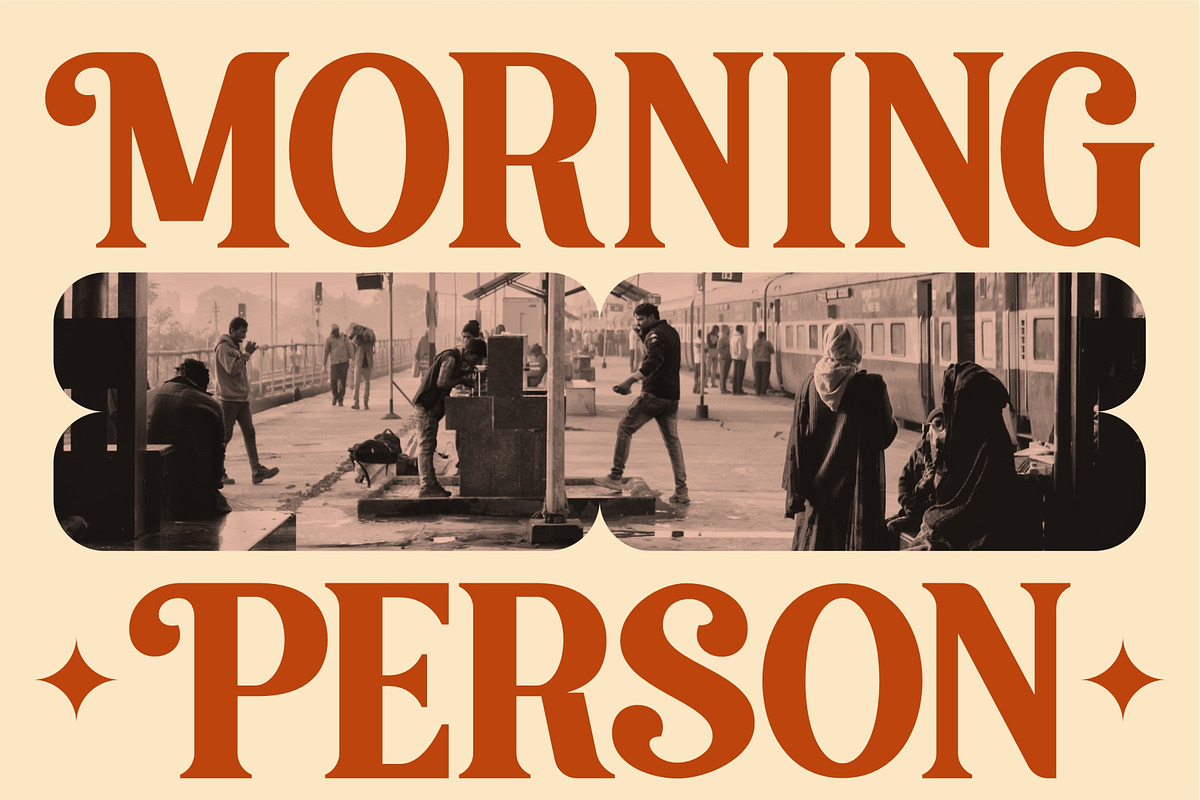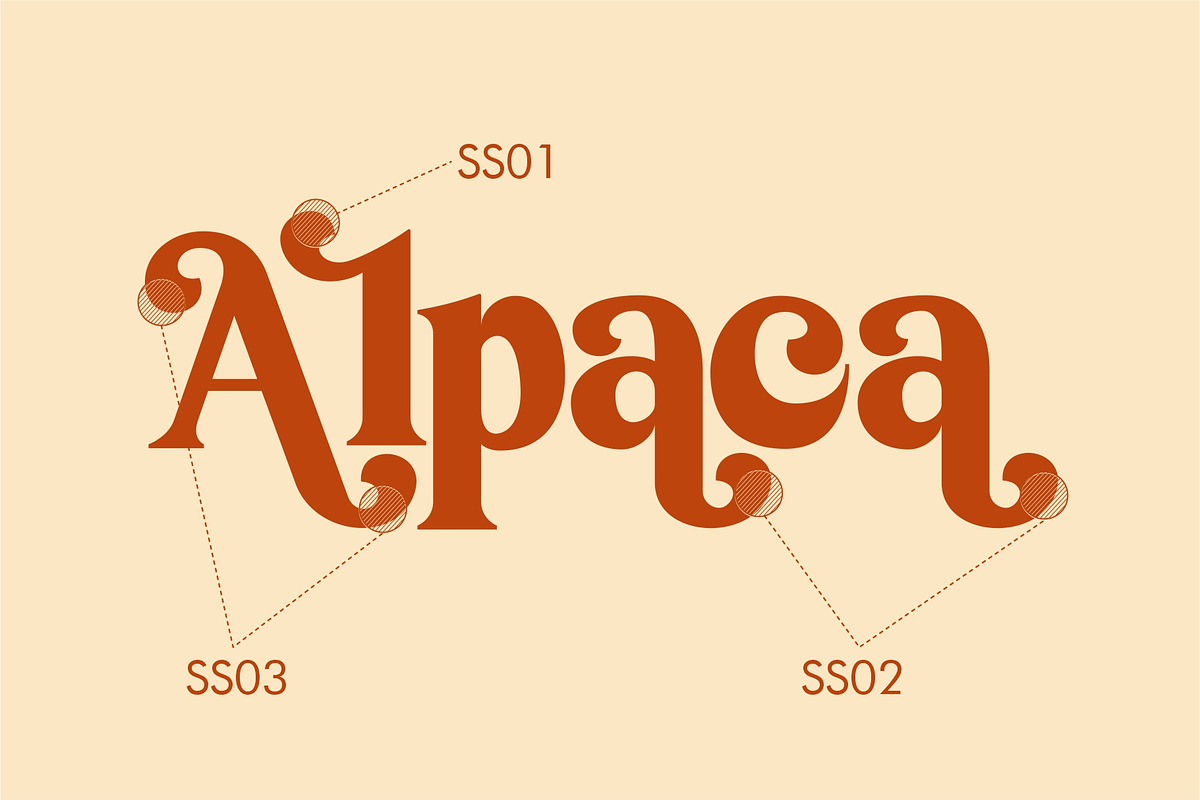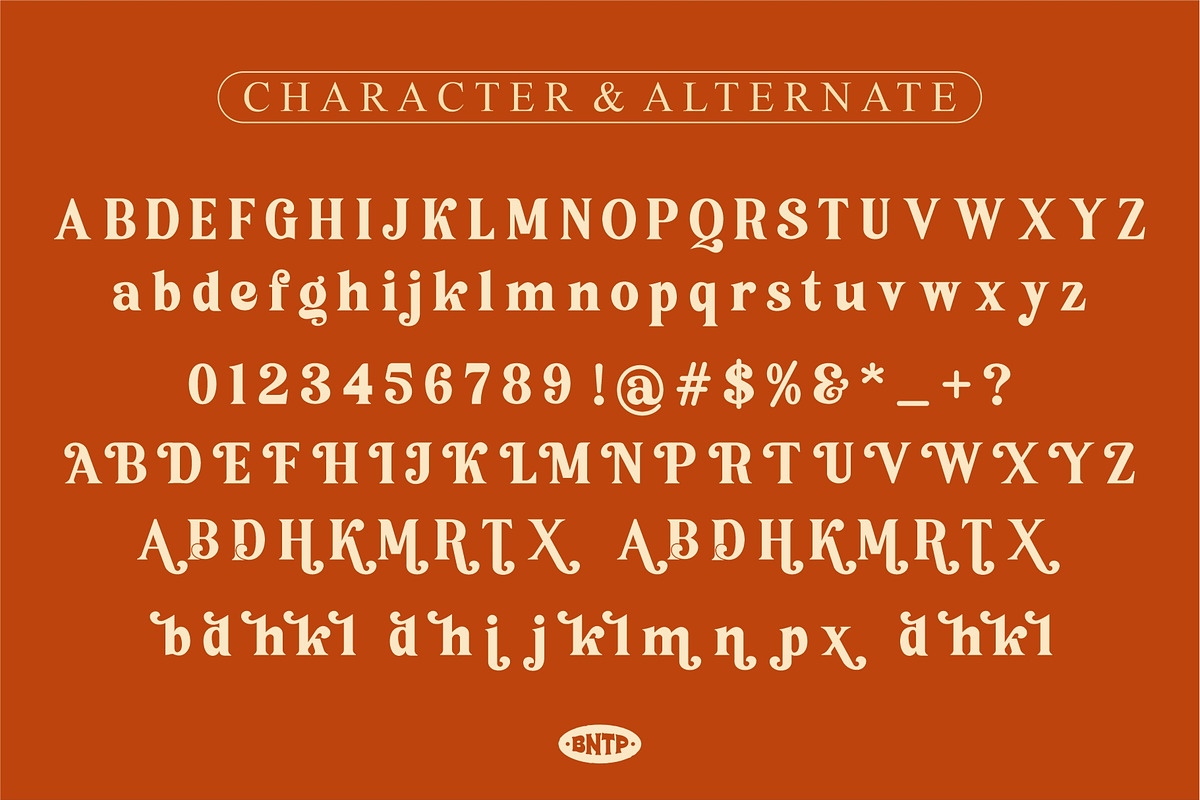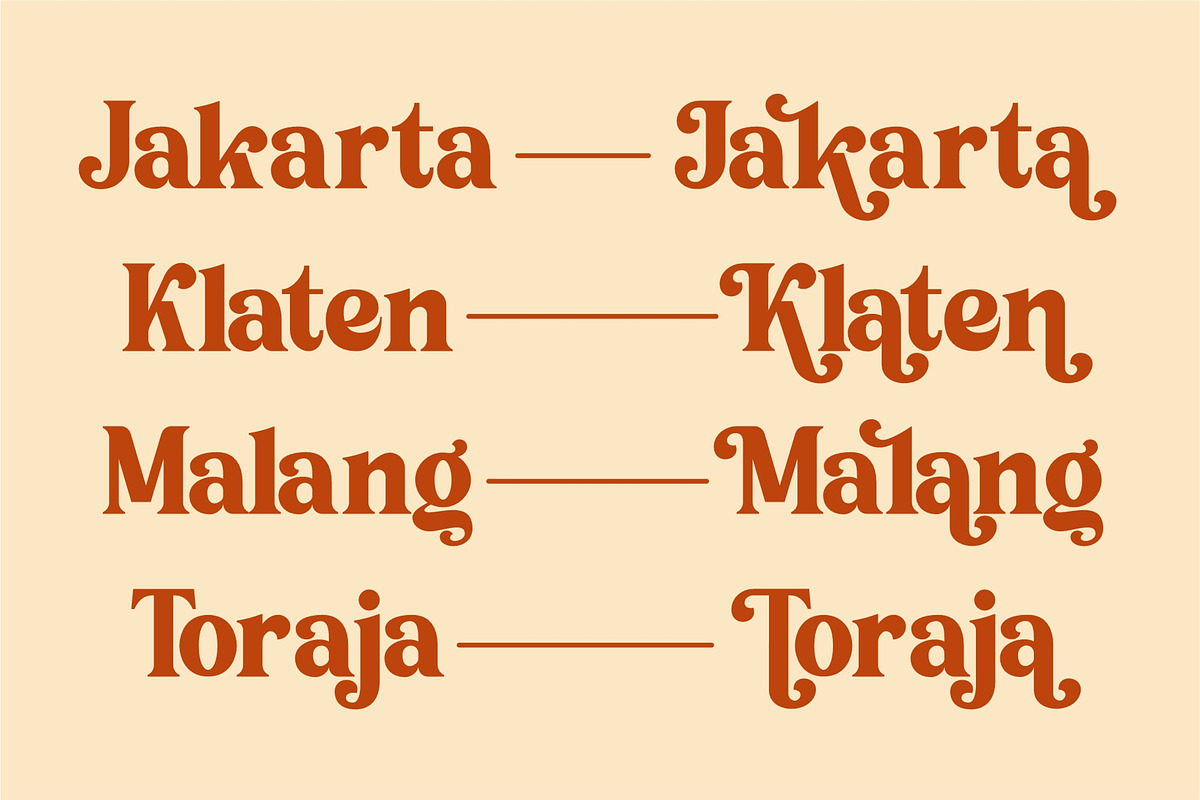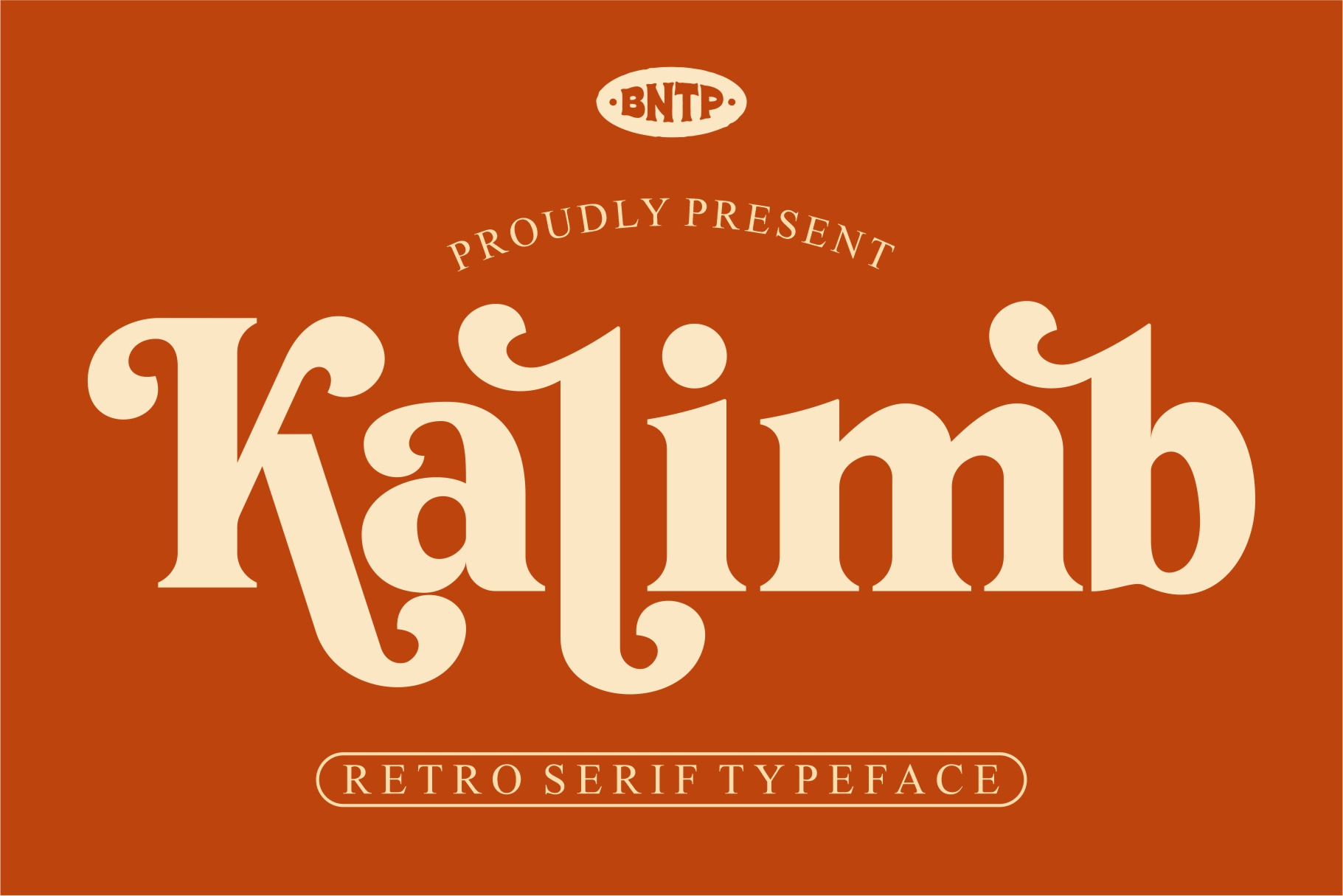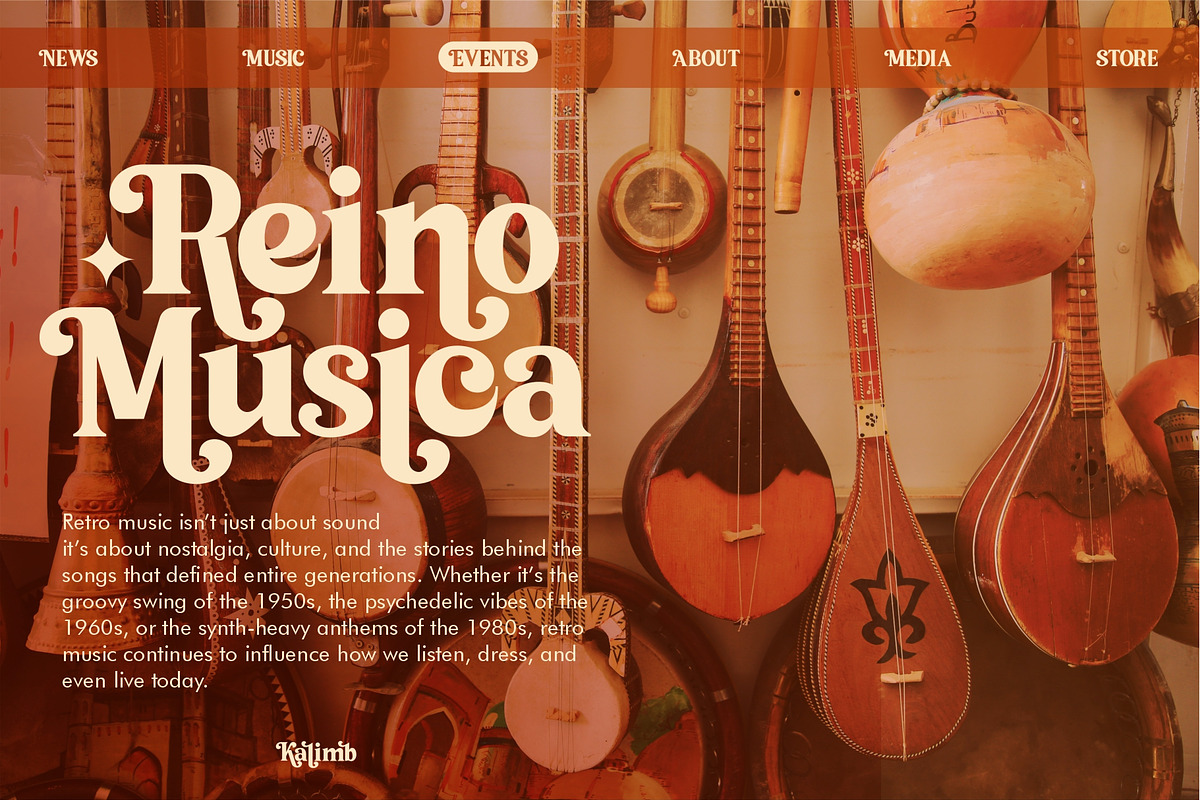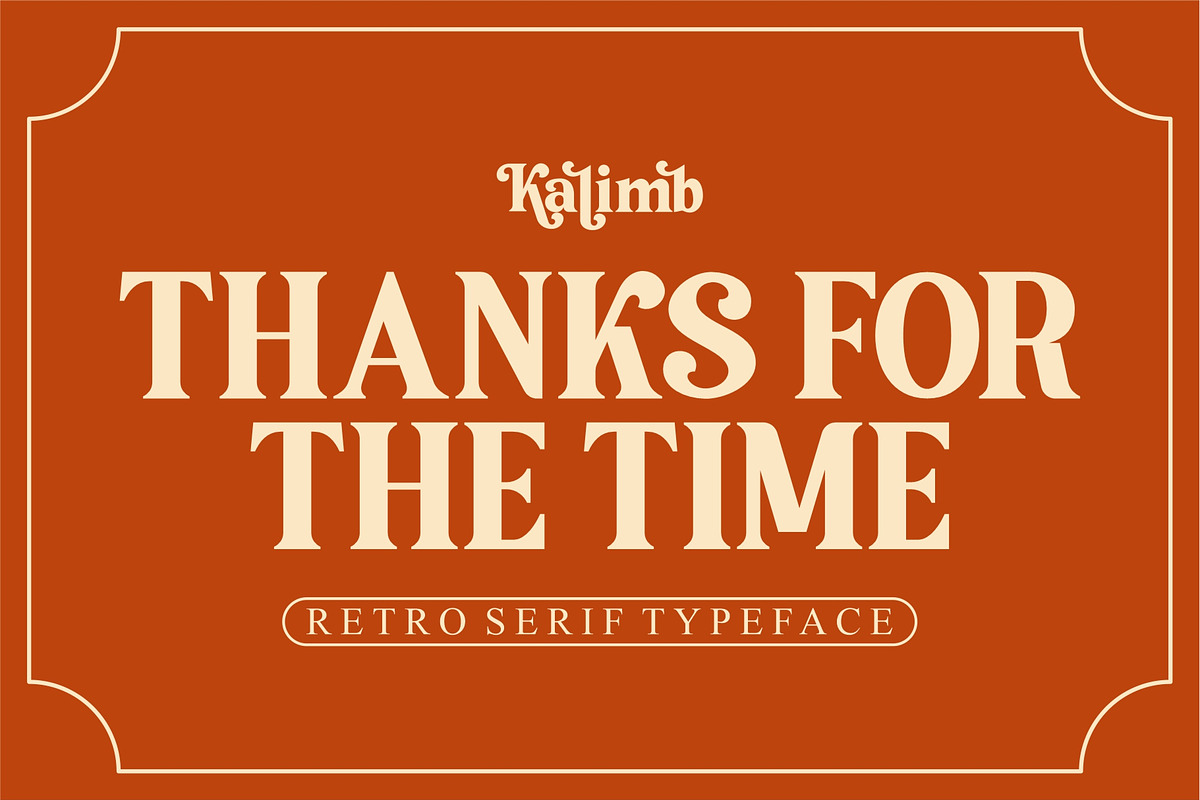
Kalimb - Retro Serif Typeface
Kalimb is a serif font designed to bring a retro atmosphere while radiating subtle elegance. Inspired by the diversity of cultures around the world, Kalimb presents letterforms that are both refined and sophisticated. Its well-crafted serif details add a touch of classical charm, while the overall design seamlessly blends the spirit of the past with a modern touch, ensuring its relevance in today’s era.
Thanks to its versatility, this font can be applied to a wide range of design needs—from headlines, news titles, and invitations to visual works that demand special attention. Kalimb is an excellent choice for cultural publications, art exhibition identities, heritage-themed branding, and creative projects that aim to highlight cultural diversity in an elegant way.